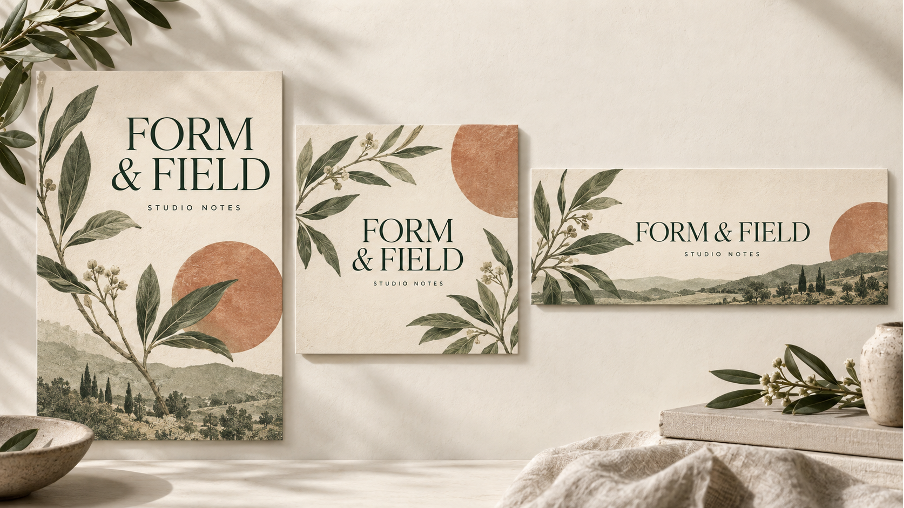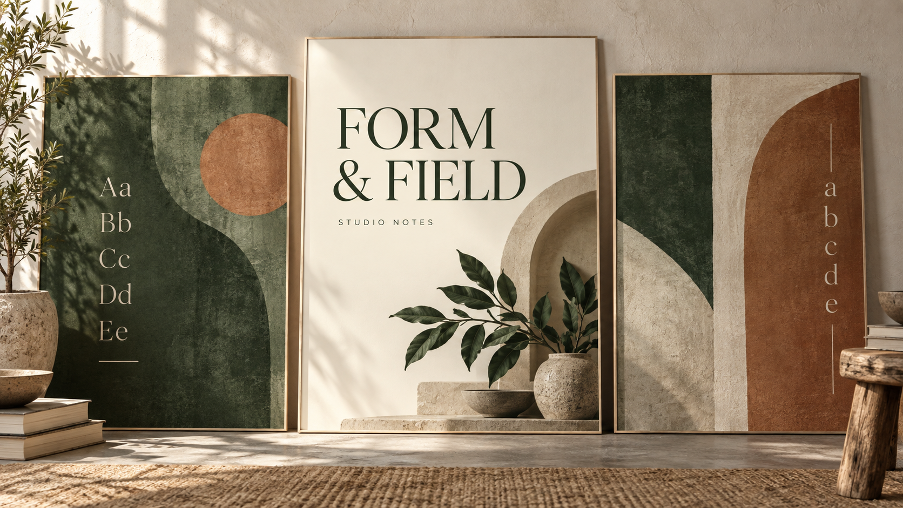
How to Pair Fonts with AI-Generated Backgrounds
A beautiful background can make a poster harder to read. Leaves cross the headline, a bright reflection cuts through the date, or a delicate font disappears into a paper texture. Pairing fonts with AI-generated backgrounds starts with a practical question: where will the words live? Choosing the type and the image together gives both a clearer role.
Whisk AI can fit into the image exploration stage of that process. It is a web-based image-generation and editing service, with text and reference-image workflows for developing visual directions. A designer can use it to explore background ideas, then place the final wording in a layout editor where spelling, font choice, and spacing remain editable.
That division is useful even when a generator can render convincing lettering. Keep information that must remain exact, such as dates and prices, in a separate text layer. An image can establish the mood; typography needs to deliver the message.
Match Font Pairings to the Background’s Job
Start by deciding what the image should contribute: atmosphere, a recognizable subject, or supporting texture. If the background already carries a strong visual identity, the supporting type can be restrained. If the image is quiet, the headline has more room for personality.
A serif headline and a simple sans serif for details make a useful starting point for an exhibition or editorial-style poster. A heavy sans serif headline can suit a geometric composition. A script face may work for a short accent, but using it for the time, address, and booking instructions makes the reader do unnecessary work.
These are starting points, not fixed rules about which font categories belong together. Two fonts need different jobs more than they need different labels. A single family with contrasting weights can provide enough hierarchy. Conversely, two unrelated families can compete if both have decorative shapes and similar visual weight.
When browsing fonts, preview the actual wording. A typeface that looks attractive in an alphabet specimen may have awkward spacing in your event name. Check the ampersand, numerals, punctuation, and any accented characters the finished design requires. Judge the pair at the intended size, not only in a large preview.
A Font-First Workflow for AI Backgrounds
The following process keeps image exploration connected to the actual layout, so the background supports the copy from the beginning.
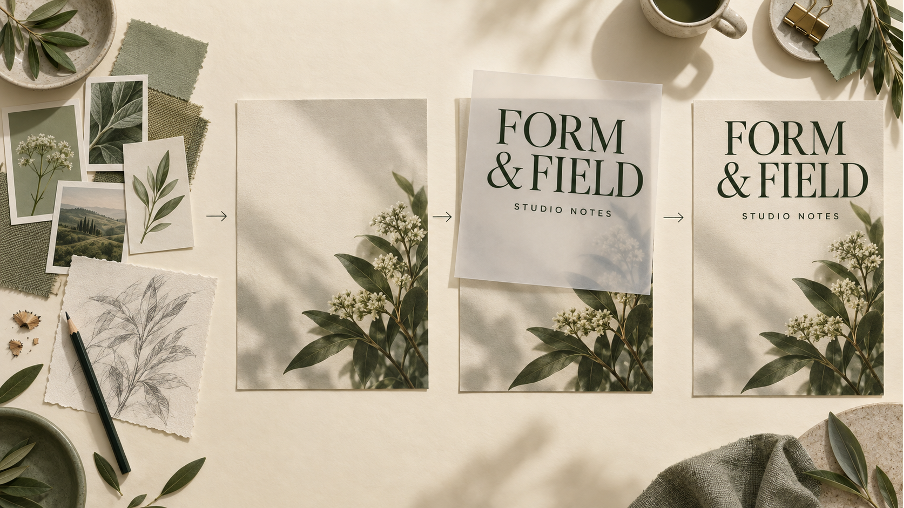
Concept illustration: references, background, editable typography, and assembled layout are separate stages.
Step 1: Set the Copy and Reading Order
Write the headline, supporting line, and essential details before generating an image. Decide what a viewer should notice first, second, and third. Set up a plain artboard with the real copy and a rough type hierarchy.
For a workshop poster, the event name might come first, the subject second, and the date and venue third. If everything looks equally important, adjust size, weight, or spacing before adding decoration. This plain version becomes the reference for judging every background option.
Step 2: Describe the Space Around the Text
Prepare a small set of references you are entitled to use: perhaps a material texture, a lighting example, and a composition sketch. Give each a clear purpose. A crowded mood board can introduce several competing directions without explaining where the text needs to go.
Describe the background in terms of placement as well as style. For example: “Warm cream paper texture, soft botanical forms concentrated along the lower-right edge, broad uncluttered upper-left area, gentle lighting, no lettering or logos.” Treat this as a starting brief, not a guarantee of exact placement.
Review a few variations with the rough text layout on top. Reject images that put sharp edges, bright highlights, or important subjects behind the copy. Revise one variable at a time, such as subject position or texture intensity, so the reason for an improvement remains clear.
Step 3: Add Real Typography on Separate Layers
Bring the chosen background into a layout editor and insert the actual font files through that editor’s normal type controls. Set the headline and details as editable text. Do not ask an image edit to repair one date if replacing that date in a text layer will preserve the rest of the design.
Look closely at spacing between letters, line breaks, and the distance between information groups. If a long title becomes cramped, try a different line break before shrinking every element. If the background still competes, move it or introduce an opaque text panel rather than repeatedly changing fonts.
Step 4: Review the Delivered Size
Export a preview and view it at approximately the size people will encounter it. A full-screen design can hide small-text problems that become obvious in a feed. For print, inspect a proof at the intended physical size and viewing distance.
This workflow suits small studios, event organizers, and content designers developing a visual direction. It provides room to explore imagery while leaving precise communication under direct control. The final test is practical: the design should express a mood, and the reader should still be able to find the information.